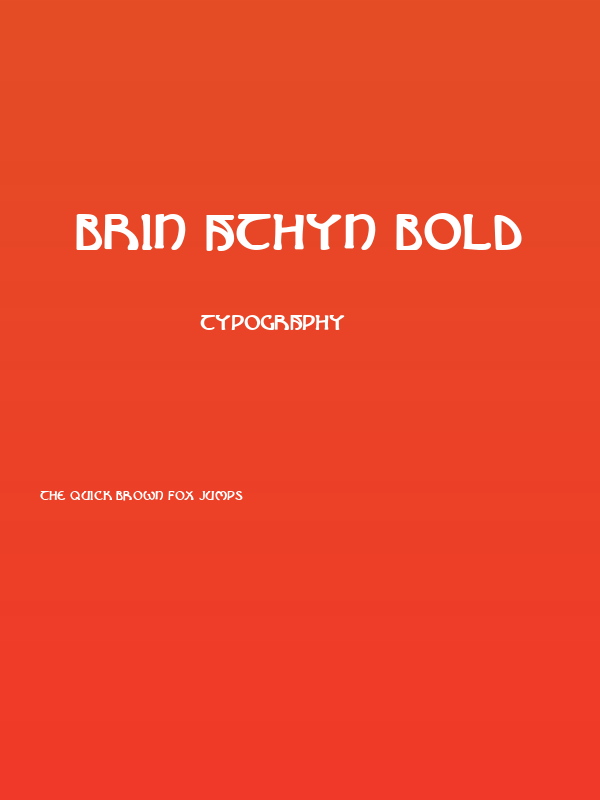
Brin Athyn Bold Font
Brin Athyn Bold Description
This font features a bold and playful design with a unique, rounded style. The characters exhibit a whimsical flair, with exaggerated curves and a slightly irregular form that adds a sense of movement and energy. The uppercase and lowercase letters maintain a consistent weight, creating a harmonious appearance. The numerals and special characters follow the same playful aesthetic, making them suitable for creative and informal applications. The overall look is both eye-catching and approachable, ideal for projects that require a touch of fun and creativity.
Overall StylePlayful, Whimsical
Proposed ProjectsIdeal for children's books, playful branding, event invitations, and creative posters.